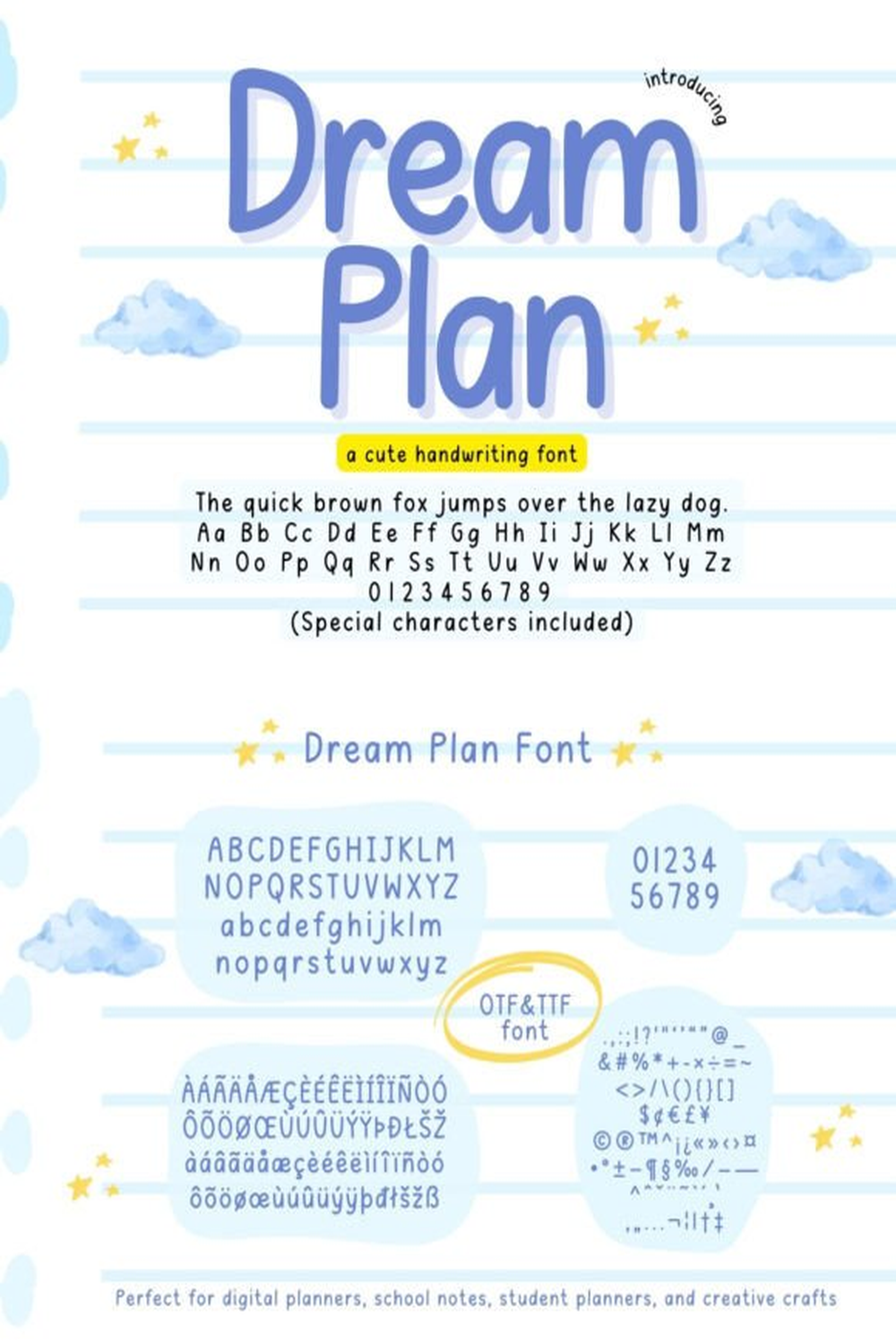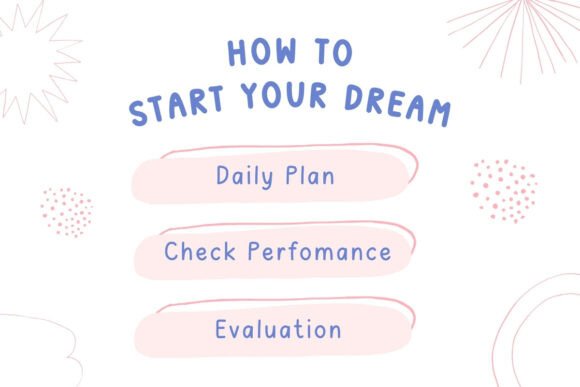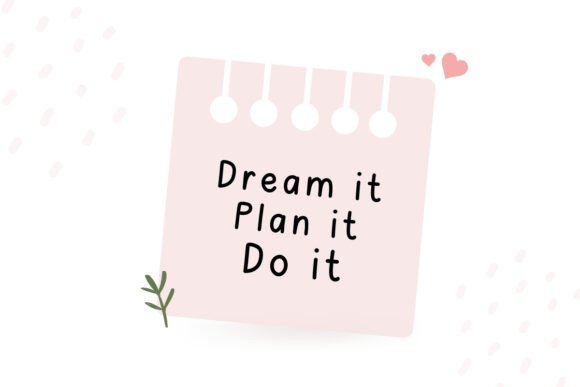
Dream Plan Font: A Cute Handwritten Font for Crafts & Planners
About the Dream Plan Font
Let us introduce you to Dream Plan Font, where timeless design meets modern craftsmanship. Dream Plan is a sweet and playful handwriting font designed to make your notes and creative projects stand out! Perfect for school notes, student planners, digital planning, and crafting, this versatile font adds a touch of charm to every design.
Features:
✨ Cute and clean handwritten design
✨ Ideal for note-taking, journaling, and crafting
✨ Perfect for school, digital planners, and creative projects
Let Dream Plan bring creativity and organization to your notes and designs!